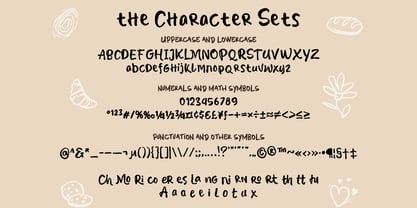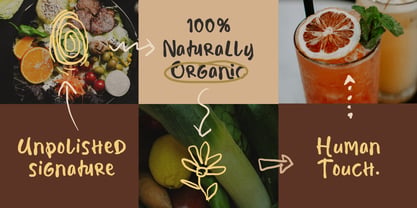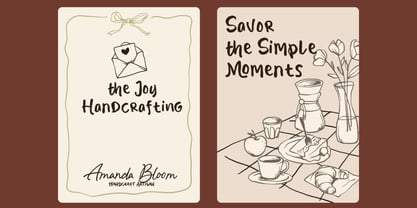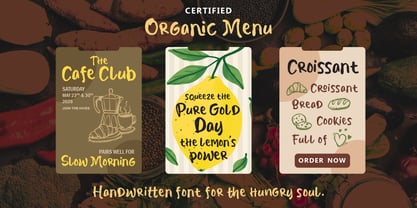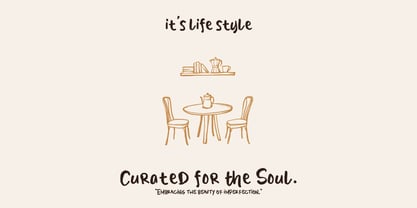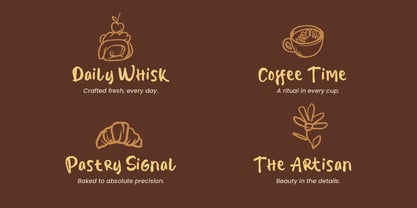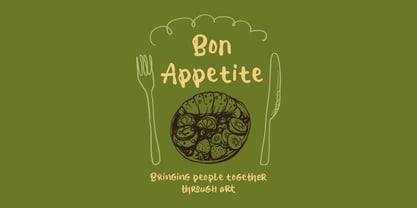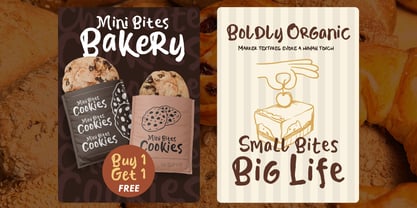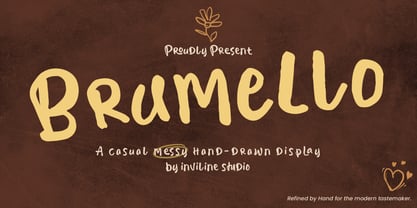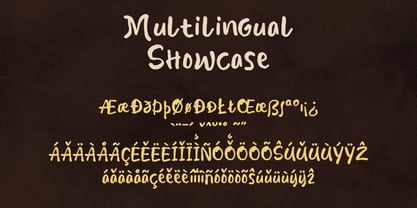
Brumello
by Inviline
Introducing Brumello - an artisan-crafted Display Serif that embodies the essence of understated luxury, enhanced by a personal touch. Moving away from rigid geometric serifs, Brumello features subtle hand-drawn irregularities that contribute to its warm, inviting, and distinctly upscale character. Inspired by custom stationery and high-end fashion houses, this font excels in grand-scale applications such as prominent mastheads, brand identities, and luxurious social media graphics. Brumello is the perfect choice for brands that value the charm of a handcrafted aesthetic while maintaining an unwavering commitment to refinement.